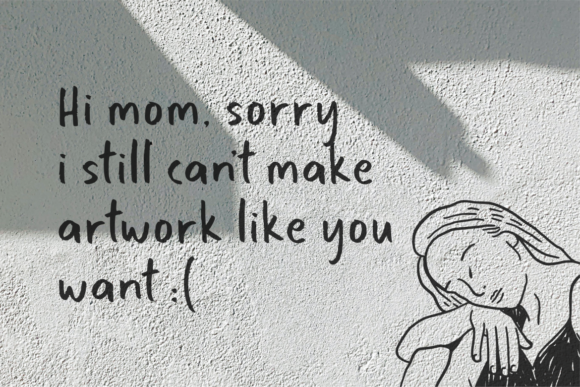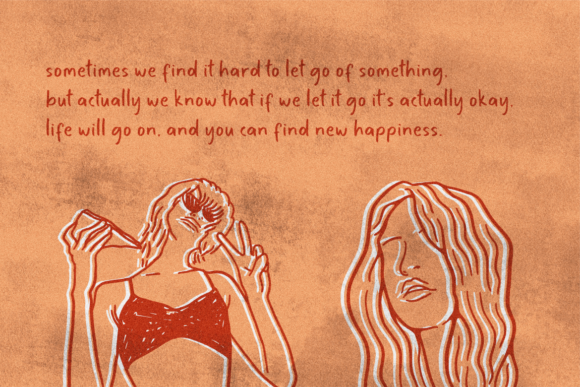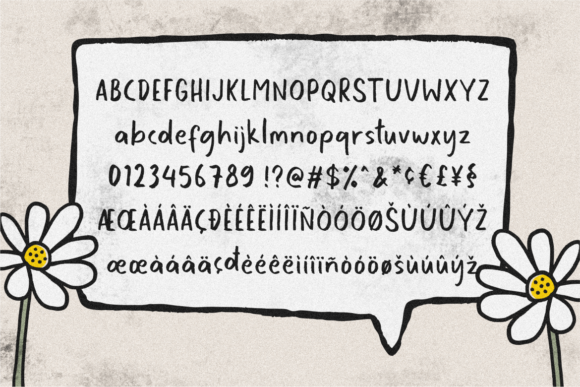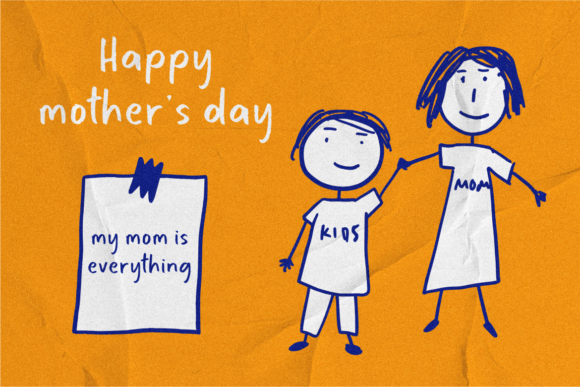
Neokid Handwriting Font Font
About Neokid Handwriting Font
Neokid is natural handwriting font from cute little kid’s notes. Inspired by childhood, this adorable font is perfect for quotes, social media, posters, logos, packaging designs, and others.